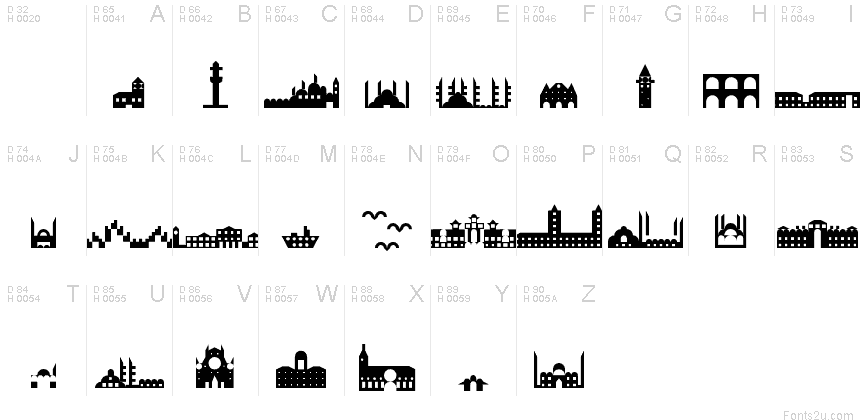
Istanbul by birisi of FSI FontShop International GmbH is a free non-Latin script-style display font shaped around an architectural skyline. Its dense silhouettes combine domes, towers, arches, minarets, and structures, turning each character into a compact city landmark. Repeated verticals and rounded domes give the sequence a strong urban cadence.
Travel brands and cultural venues could use it for destination posters, event graphics, and souvenir merchandise rooted in Istanbul's built environment. In magazines, its architecture can illustrate city guides and travel features.